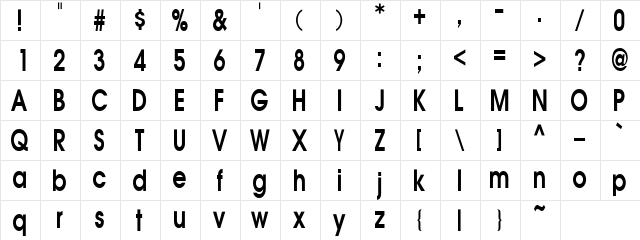
AC-Block Regular
Design Context for AC-Block Typeface
AC-Block offers clean, dependable letterforms without strong stylistic allegiance, making it a practical choice for designers who need flexibility.
Pro Tip: Use AC-Block in both headline and body roles to test its range before committing to a single application.